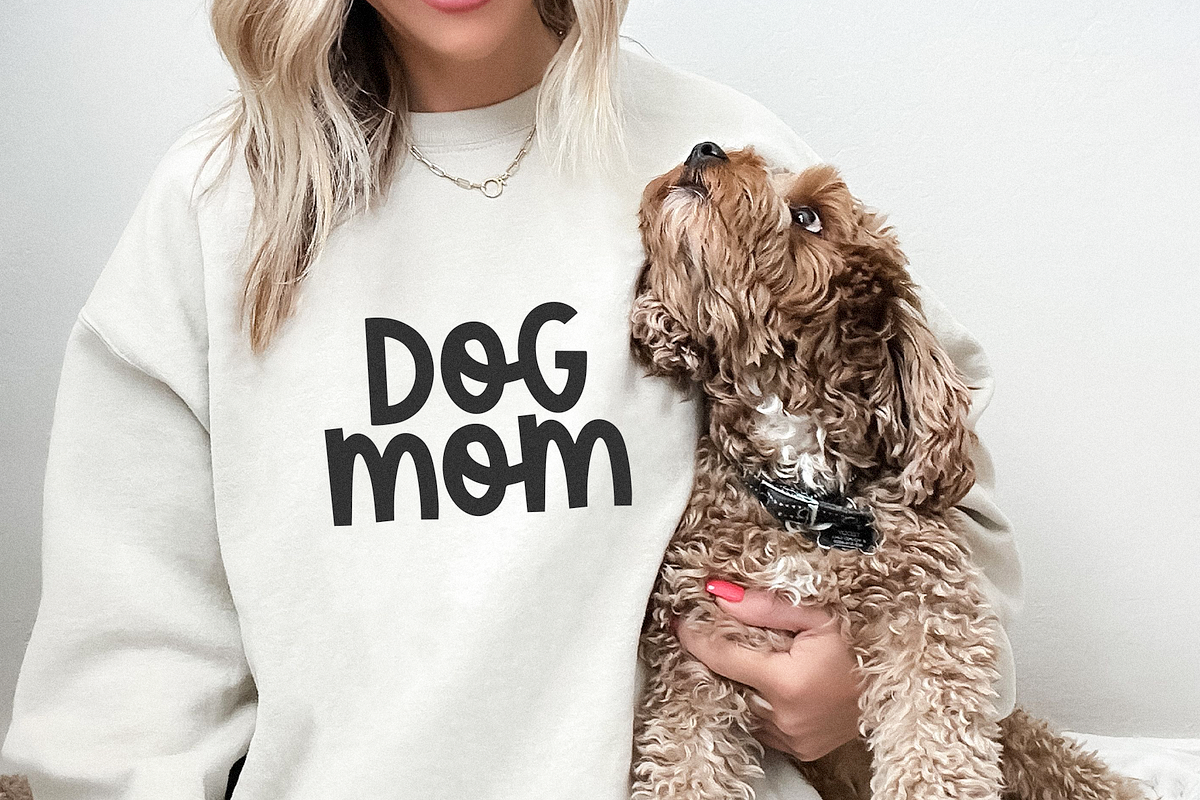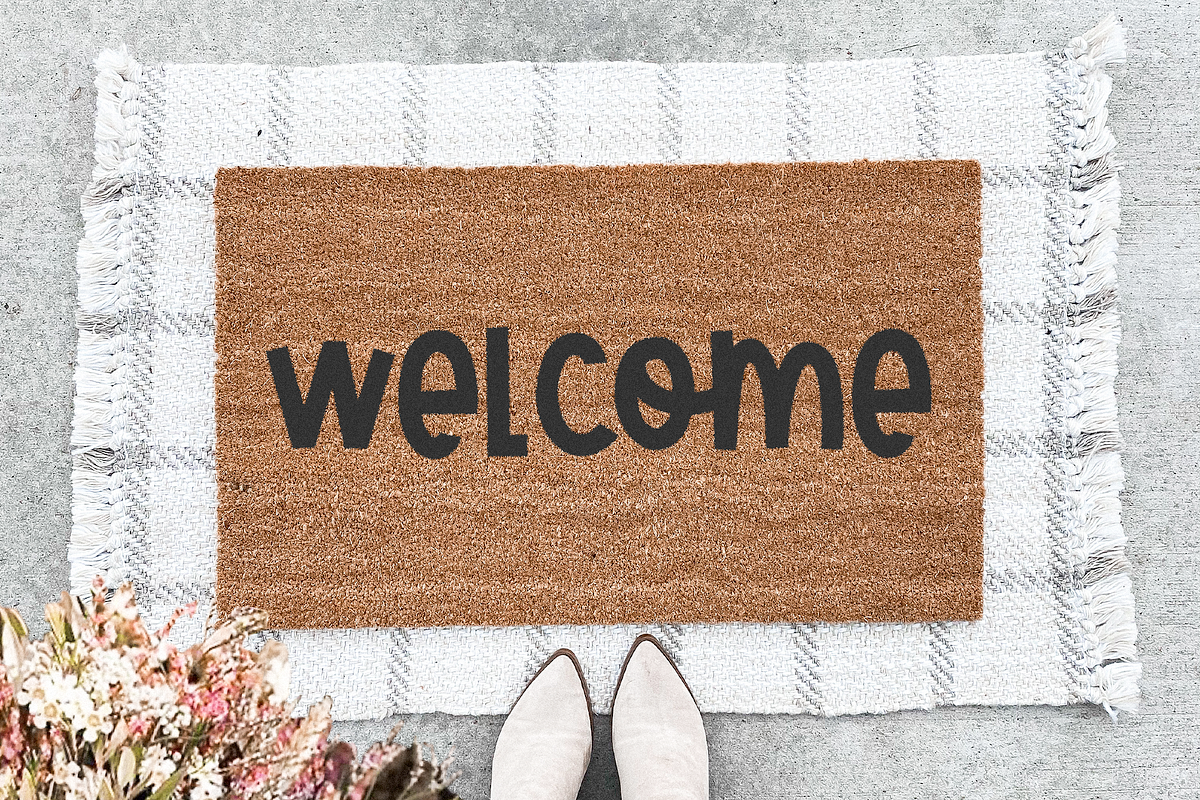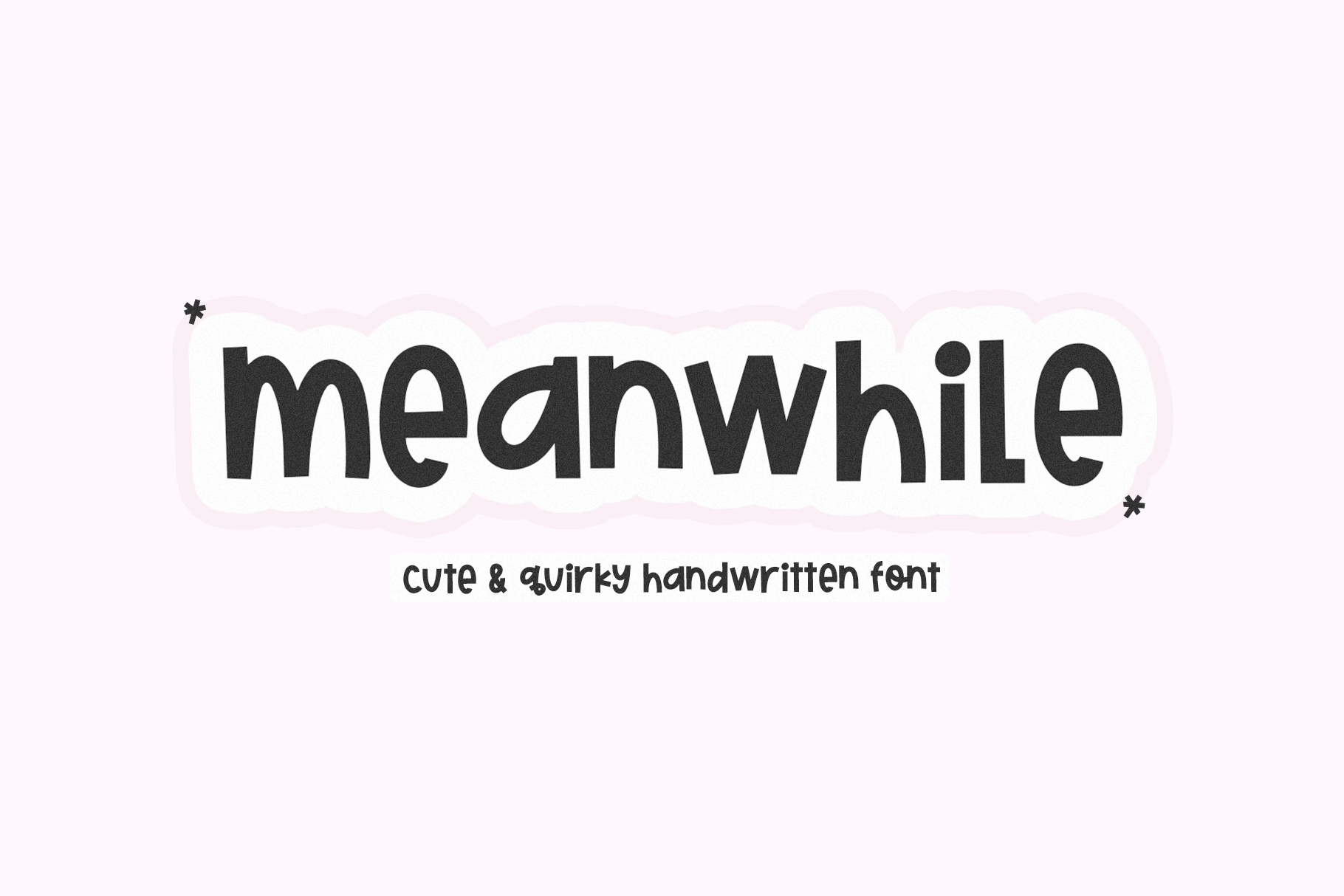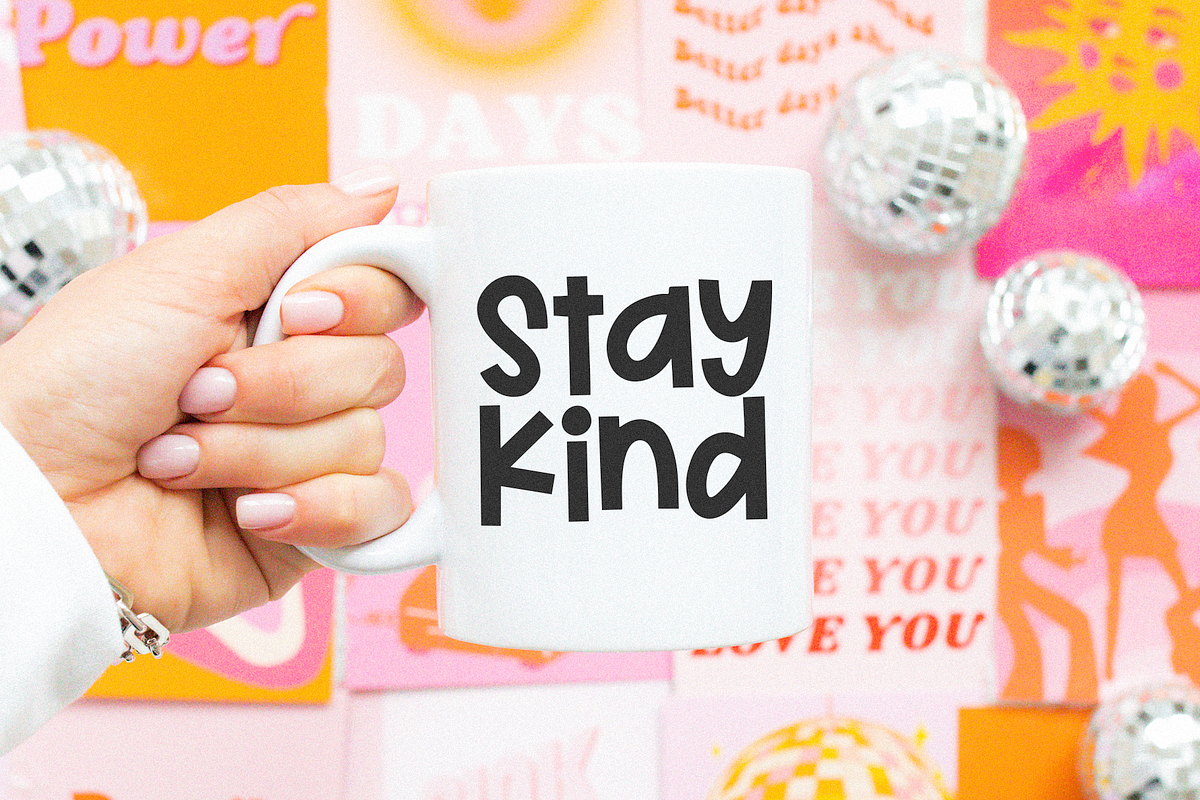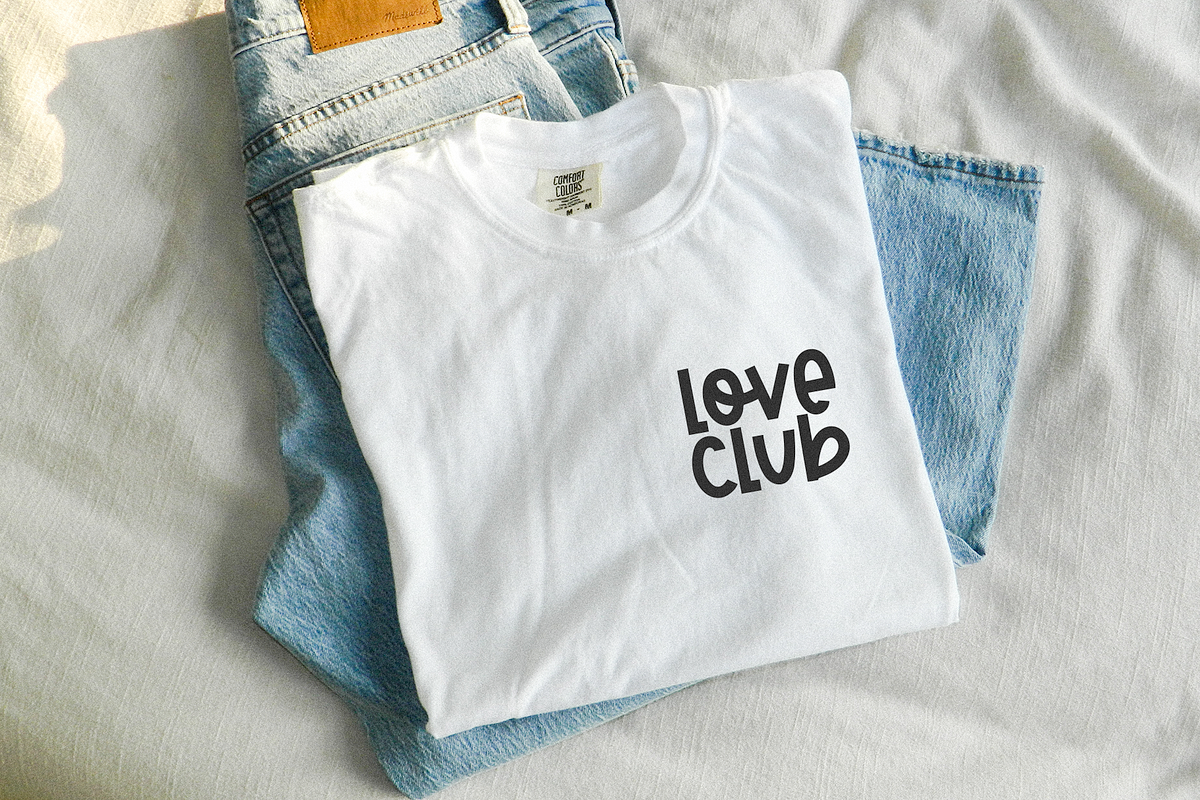
Meanwhile | Quirky Handwritten Font
Meanwhile is a bold and quirky handwritten font!
This font is perfect for all of your craft projects, svg designs, shirts, stickers and more!